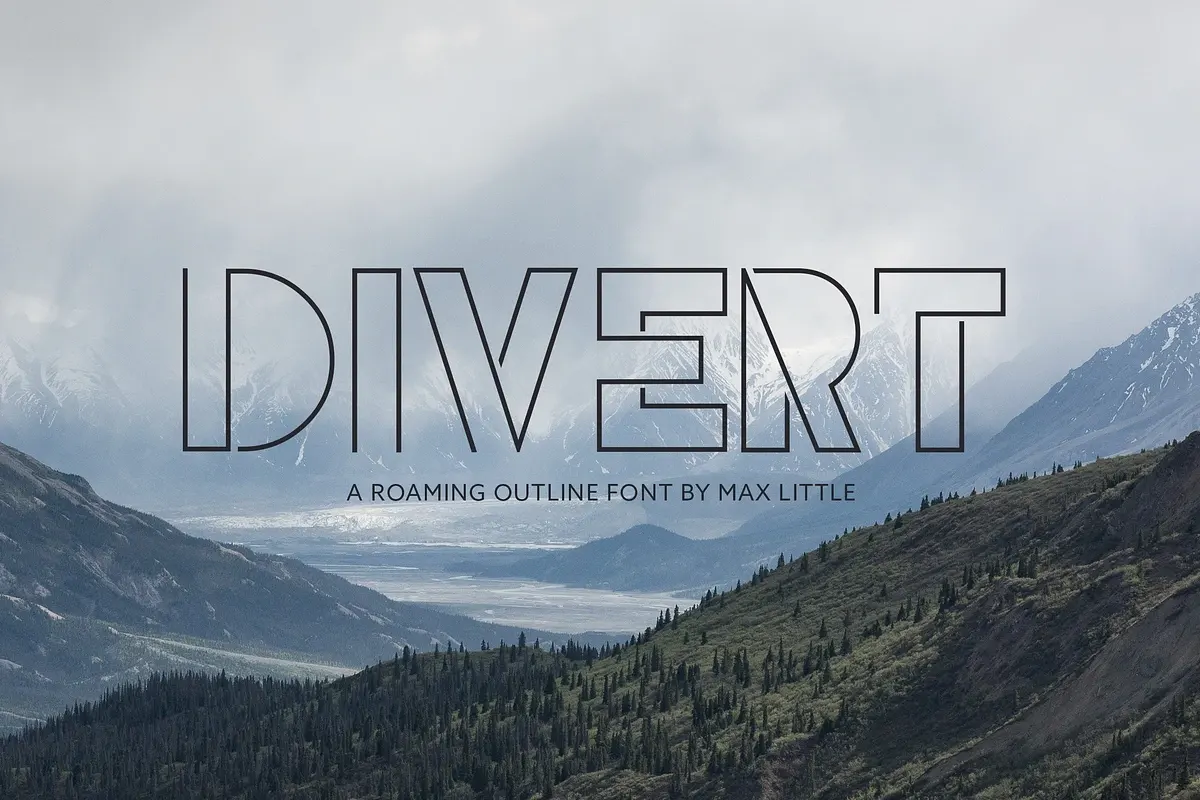
Divert Font Free Download is a bold and creative display typeface that blends modern aesthetics with artistic flair. With its sharp angles, unique character shapes, and eye-catching design, Divert is perfect for posters, logos, album covers, editorial titles, and any project that calls for strong, unconventional typography.
Divert Font Free Download offers a fresh, standout look that captures attention while maintaining readability. Whether you're designing for fashion, tech, or the arts, this font brings a distinctive edge to your visual identity. Download it today and make a bold statement in your next creative project with Divert.